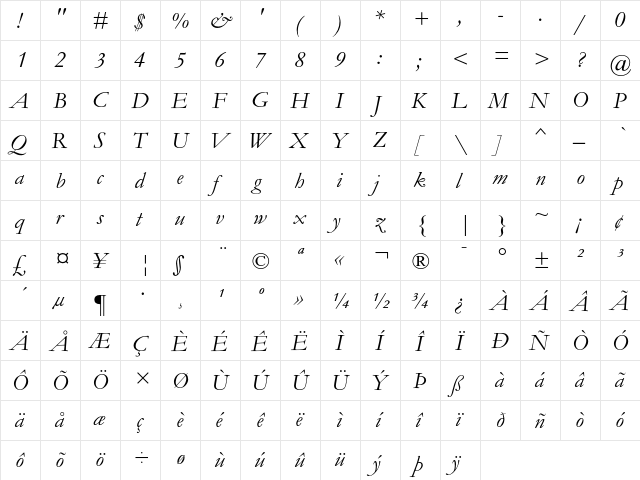
Garamond MT Alternative Italic
Design Context for Garamond MT Typeface
Garamond MT offers clean, dependable letterforms without strong stylistic allegiance, making it a practical choice for designers who need flexibility. The dynamic lean of this cut emphasises speed and emphasis in any layout.
Pro Tip: Use Garamond MT for emphasis, pull quotes, and subheadings where its slanted energy can add rhythm to the layout.